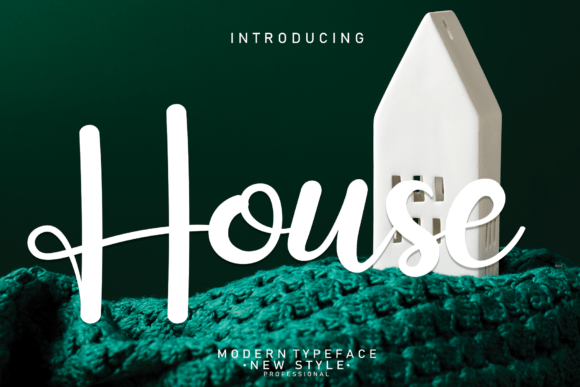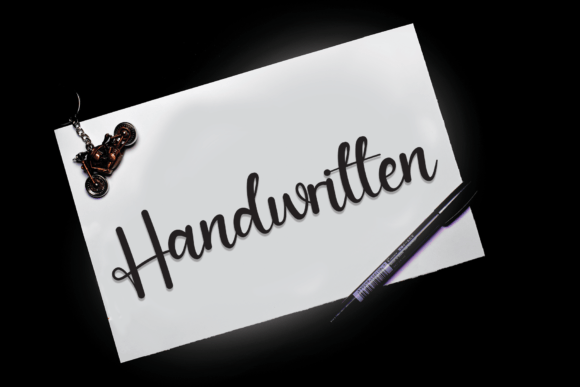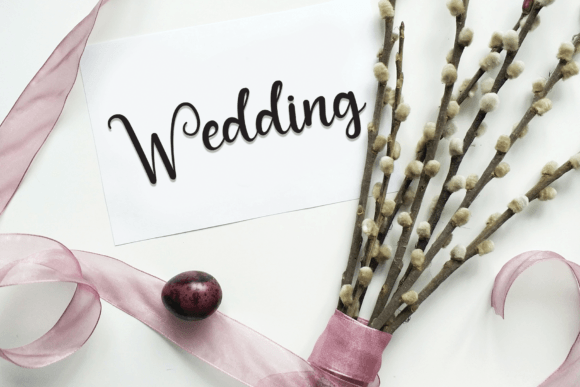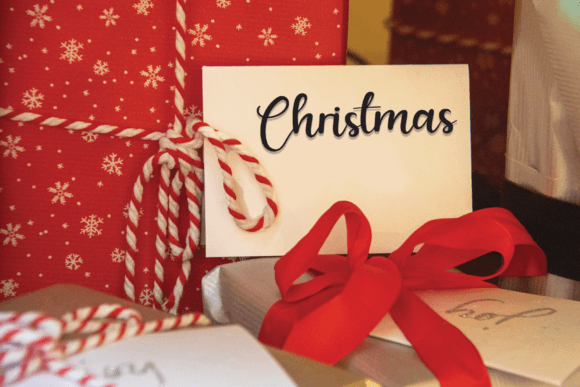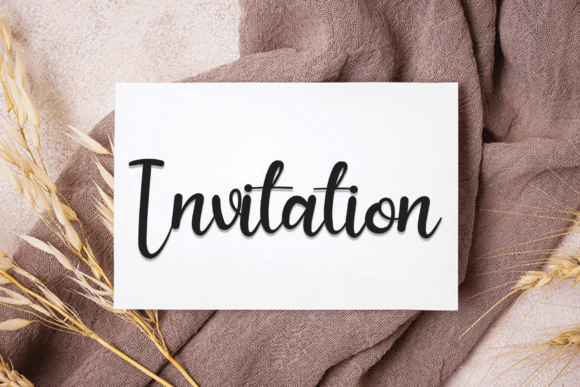
House Font
About House Font
The House Font Download is a fun and friendly handwritten typeface that brings warmth, charm, and creativity to your projects. With its playful curves and smooth strokes, this font looks natural, casual, and approachable, making it a great option for designers who want their work to stand out while staying friendly and engaging.
Moreover, House is designed to be versatile. Whether you are creating greeting cards, designing branding projects, or preparing social media graphics, this font adapts seamlessly. In addition, its clarity ensures that it works well in both small details and large, bold headlines.
Features of House Font
By choosing the House Font Download, you’ll enjoy several creative features:
• A handwritten style with smooth and natural flow
• Playful and approachable strokes for a friendly vibe
• High readability in both digital and print designs
• Balanced letterforms that look casual yet polished
• A versatile design suitable for professional and personal use
Best Uses for House Font
The House Font Download is perfect for a variety of creative contexts. For example, it works well in:
• Greeting cards and invitations – Add a heartfelt, playful touch to your messages
• Craft projects – Bring personality to DIY creations and handmade designs
• Logos and branding – Build approachable and creative brand identities
• Social media graphics – Create stylish posts for Instagram, Pinterest, and blogs
• Event posters and flyers – Bold handwritten typography that stands out immediately
• Stationery and packaging – Add a casual yet elegant look to personal or business products
Because it fits so many uses, House is a go-to choice for designers who value flexibility and style.
Why Choose House Font
The House Font Download stands out from ordinary handwritten fonts because it strikes a balance between friendliness and professional polish. Its casual look adds authenticity, while its clean design guarantees readability. In addition, it can be applied across multiple industries, from fashion and lifestyle branding to personal craft projects.
In conclusion, the House Font Download is a fun, friendly, and versatile handwritten typeface that adds charm and personality to your designs. From greeting cards and social media to branding and packaging, this font enhances every project with warmth and creativity.